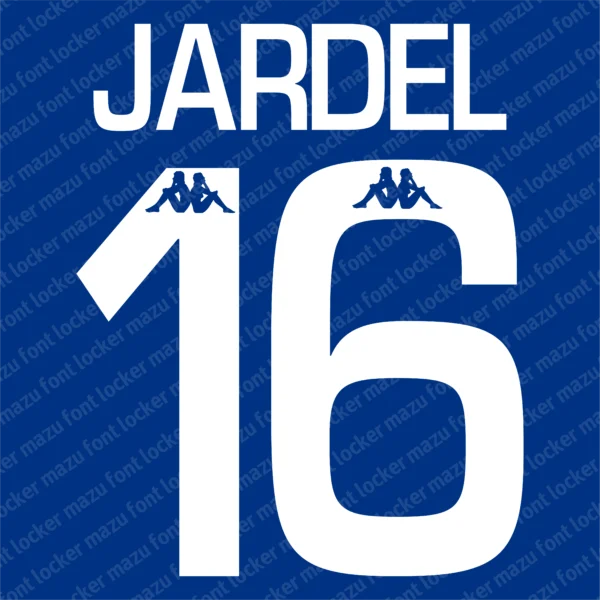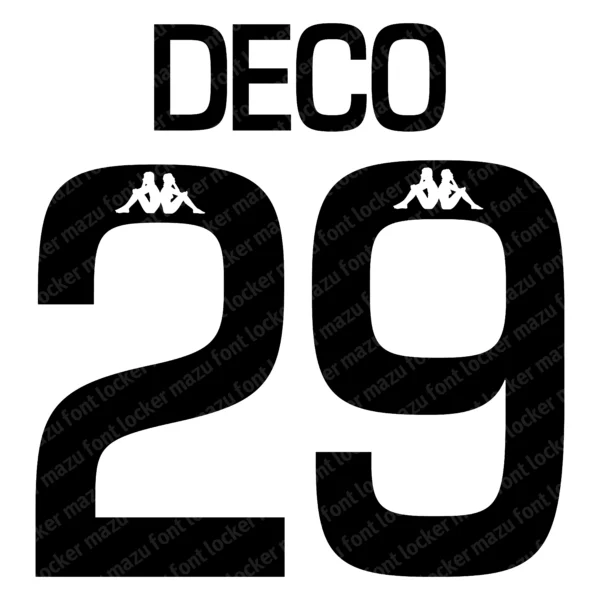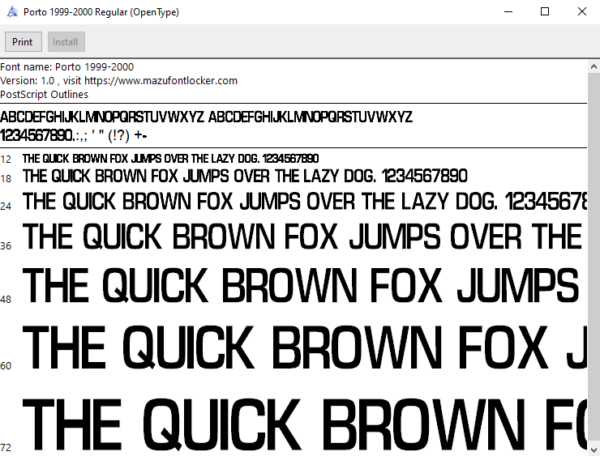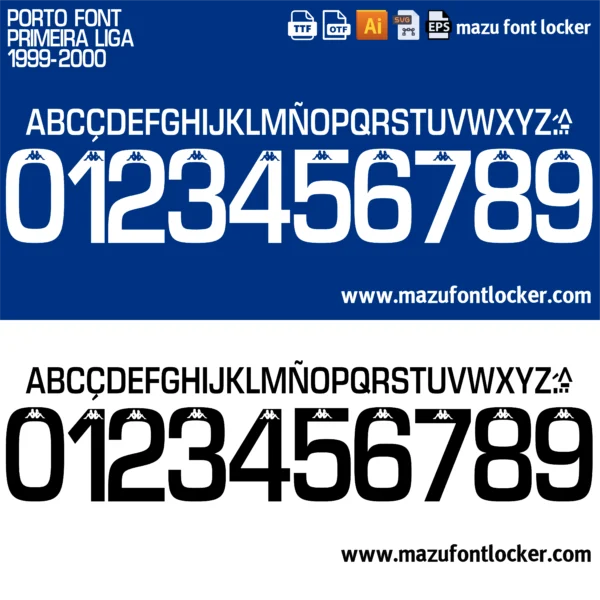
Porto 1999-2000 Font Vector – Legendary Dragões Masterpiece
Download the Porto 1999-2000 Font Vector (AI, EPS, SVG, PDF, OTF, TTF) and unleash the bold, powerful, and fiery match typography that dominated the pitch for the Dragões in the iconic 1999-2000 season. This font channels the commanding and legendary lettering that embodies the fierce blue-and-white warrior spirit of FC Porto, delivering unmatched authenticity, raw passion, and Estádio do Dragão-level intensity for premium jersey mockups and football designs.
Porto 1999-2000 Font Vector – Authentic Dragões Typeface
The Porto 1999-2000 Font Vector is a premium typeface that accurately recreates the official match lettering worn by FC Porto during the triumphant 1999-2000 Primeira Liga season. This high-quality vector font kit captures the bold, sharp, and powerful typography that represents the club’s legendary era under coach Fernando Santos.
Designed for professional designers and passionate FC Porto fans, the Porto 1999-2000 Font Vector delivers perfect authenticity for creating realistic jersey mockups, fan merchandise, matchday posters, social media graphics, and much more. It blends beautifully with the club’s iconic blue and white kits from that historic championship-winning season.
Why Choose Porto 1999-2000 Font Vector
This font stands out because of its sharp vector details and strong identity. Every letter and number is crafted to match the exact style used on the players’ shirts during the 1999-2000 season. Whether you are making realistic kit templates or nostalgic football content, the Porto 1999-2000 Font Vector gives your designs that authentic Dragões look.
The letterforms in the Porto 1999-2000 Font Vector are tall, bold, and highly readable. The strokes have a strong, clean weight with excellent edge definition that looks powerful on the back of jerseys while maintaining clarity and classic Portuguese elegance.
• Full uppercase A–Z and numbers 0–9 in authentic Porto 1999-2000 style
• Special FC Porto crest glyph for accurate shirt number detailing
• Create highly realistic Porto 1999-2000 home and away jersey mockups with accurate lettering
• Design stunning season posters, score graphics, and squad announcements
• Produce custom Dragões merchandise with a classic late-90s football aesthetic
Porto in the 1999-2000 Season
FC Porto, famously known as the Dragões, celebrated a memorable campaign in the 1999-2000 season, winning the Primeira Liga title. With key players such as Vítor Baía, Deco, Mário Jardel, and others, the team displayed dominant football at the Estádio das Antas.
The Porto 1999-2000 Font Vector is an independently designed typeface package. It is carefully crafted to replicate the official shirt lettering style of the 1999-2000 season. This font kit is perfect for creative projects, fan edits, nostalgic jersey designs, and custom football graphics.